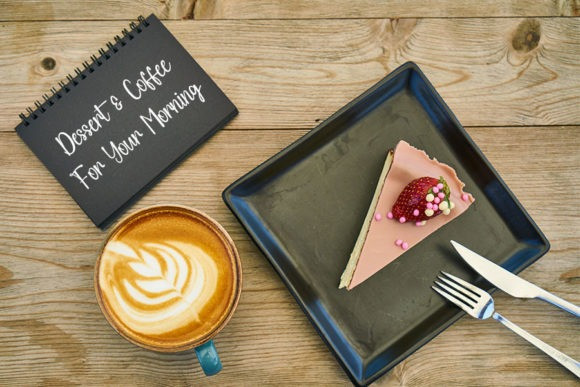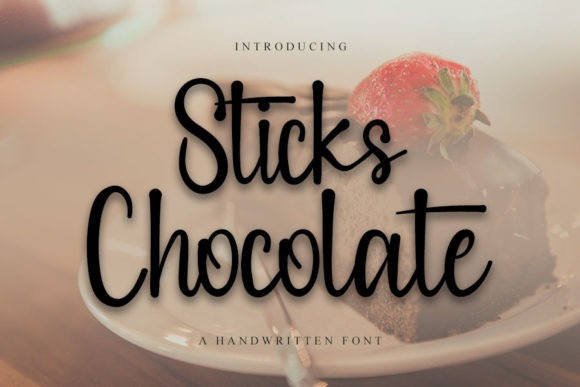
Sticks Chocolate Font
Sticks Chocolate Script Font is an elegant script font with a contemporary atmosphere and impeccable form, inspired by timeless classic calligraphy. Not too thin and not too thick, balanced and varied, this font was designed to enhance the beauty of your projects.